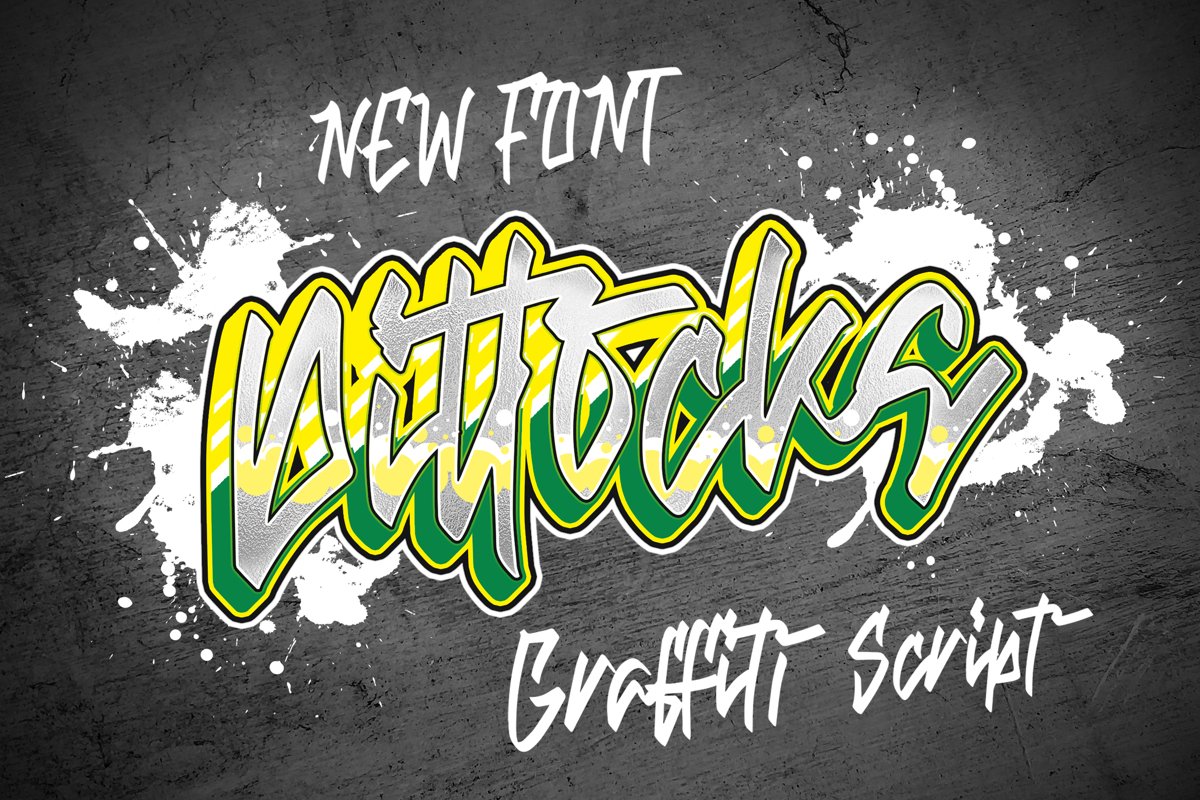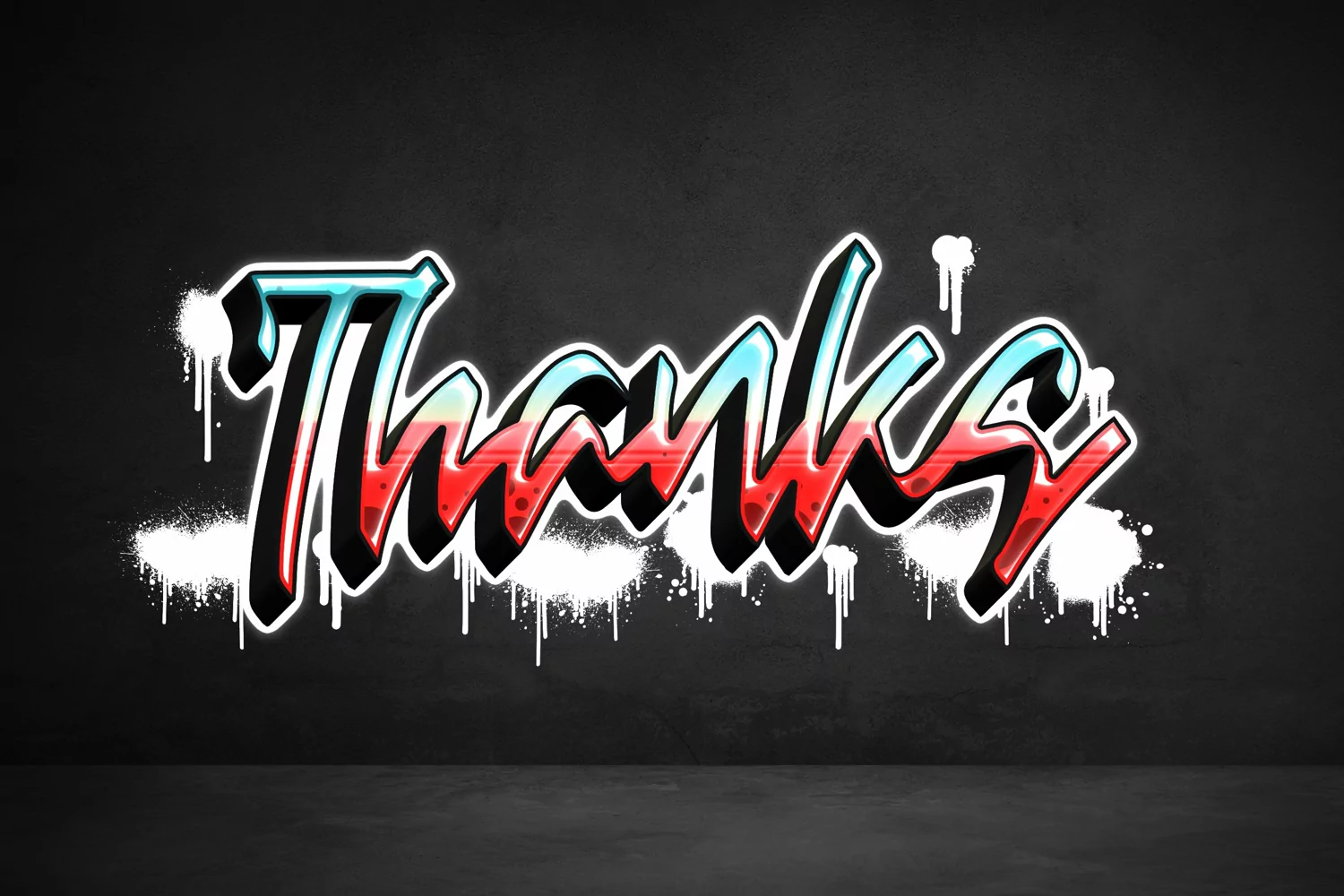
Dittocks - Graffiti Fonts that contain lowercase, uppercase, symbol, and also support multi language. There’s a lot ligatures in this font. This Font also comes with ligatures, alternates and many more. this font suitable for fashion, branding, catalog and other design what you want.
Dittocks